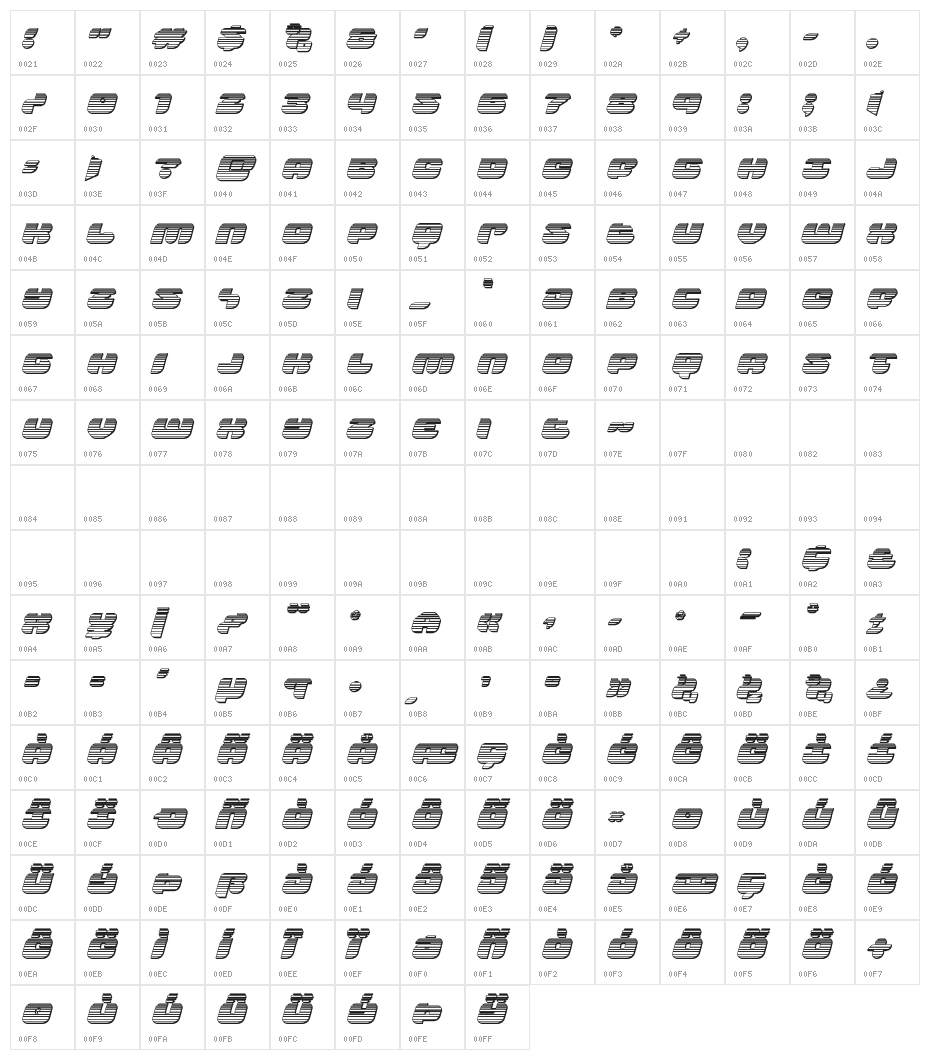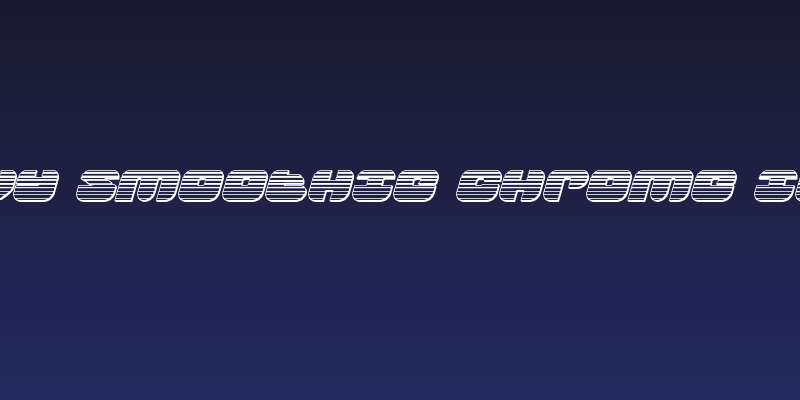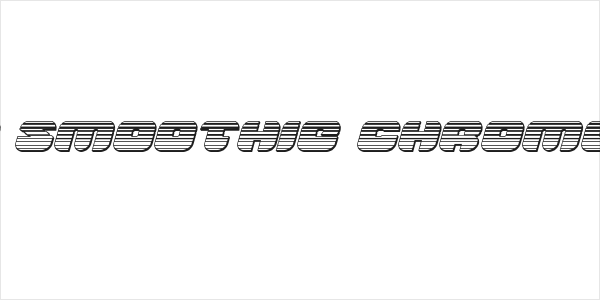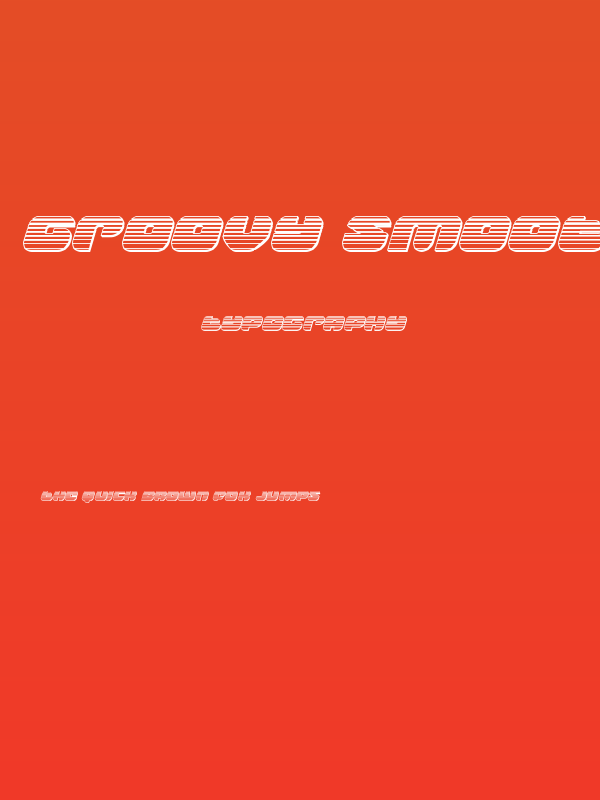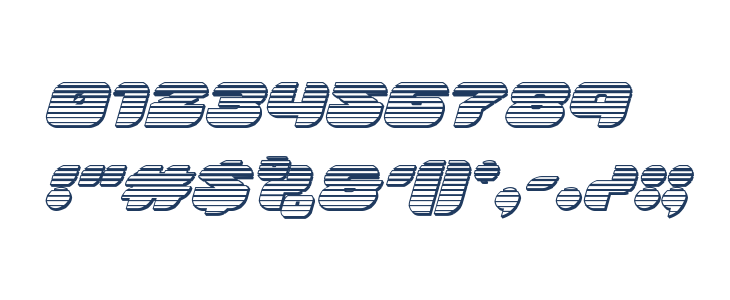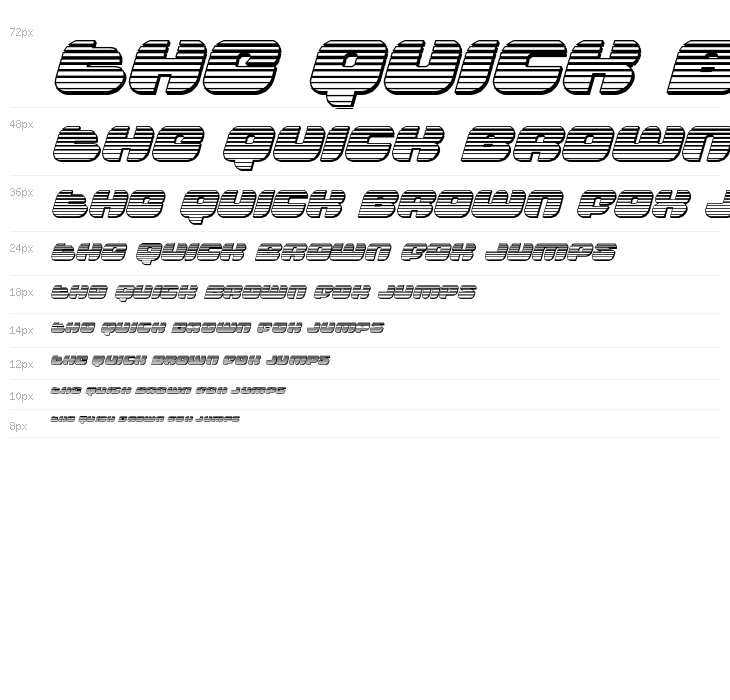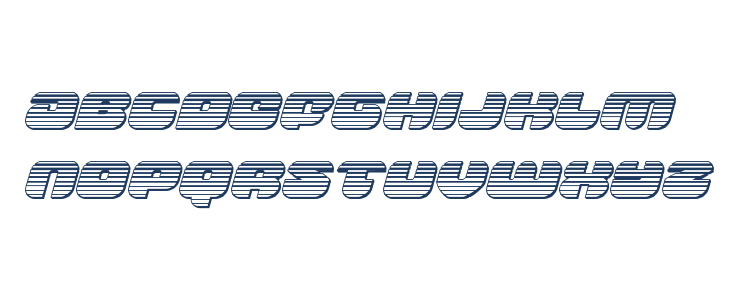
Groovy Smoothie Chrome Italic Font
Groovy Smoothie Chrome Italic Description
This font features a bold, italicized style with a distinct chrome-like appearance. The characters are designed with horizontal lines that create a layered, three-dimensional effect, giving it a futuristic and dynamic look. The uppercase and lowercase letters maintain a consistent style, with rounded edges and a smooth flow. The numbers and special characters are equally stylized, ensuring uniformity across all glyphs. This font's unique design makes it stand out, ideal for projects that require a modern and eye-catching typeface.
| Proposed Projects | Ideal for futuristic branding, tech-related designs, posters, and digital media. |